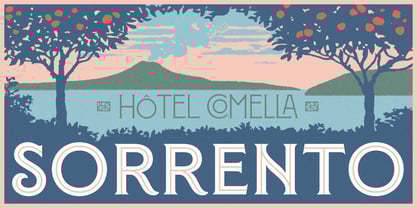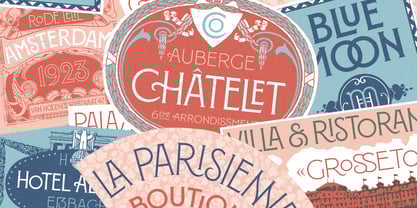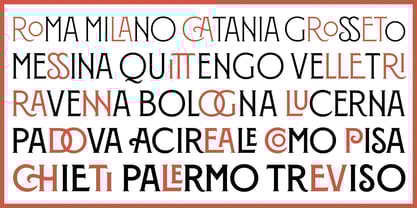
Montecatini Pro Font
This Montecatini Pro Font is perfect for luxury Italian branding, spa and wellness resort materials, thermal bath promotions, upscale hospitality signage, Mediterranean restaurant menus, premium tourism marketing, artisan craftsmanship labels, elegant fashion boutiques, sophisticated wine packaging, and refined European business communications.
What makes this Montecatini Pro Font exciting is its sophisticated Italian elegance that captures the timeless beauty and refined luxury of Tuscan wellness traditions. The font features graceful letterforms with Mediterranean sophistication that convey thermal relaxation, artisanal quality, and European refinement. Its spa-inspired character and Italian authenticity make it ideal for brands seeking to communicate wellness luxury, Mediterranean charm, and sophisticated European excellence in premium hospitality markets.
The Montecatini Pro Font family includes light, regular, medium, and bold weights with Italian alternates, thermal-inspired variants, and spa-focused flourishes. This comprehensive wellness font family provides designers with sophisticated typographic tools to create luxurious compositions while maintaining the Mediterranean character essential for spa, wellness, and European luxury brand communications.
Luxury resorts and wellness brands consistently choose Montecatini Pro Font Free Download for projects requiring authentic Italian appeal and spa sophistication. This font's distinctive Mediterranean character perfectly captures the thermal wellness excellence and European luxury that resonate with audiences who appreciate Italian spa traditions, wellness experiences, and sophisticated European hospitality.
The elegant construction of Montecatini Pro Font showcases beautifully crafted letterforms with Italian proportions that ensure exceptional sophistication across all wellness applications. Its thermal elegance and Mediterranean charm create memorable impressions while maintaining the readability necessary for effective luxury hospitality communication and spa marketing materials.
Professional designers appreciate how Montecatini Pro Font brings immediate Italian sophistication and wellness authority to brand communications. The font's spa nature allows organizations to communicate thermal luxury and Mediterranean excellence while maintaining the professional quality necessary for effective positioning in premium wellness and European hospitality markets.
The thermal appeal of Montecatini Pro Font makes it particularly effective for brands emphasizing Italian wellness traditions, spa luxury, and Mediterranean sophistication. Its elegant character resonates strongly with audiences who appreciate thermal spa experiences, Italian craftsmanship, and brands that represent authentic European wellness and sophisticated Mediterranean hospitality.
Whether developing branding for luxury spa resorts or creating materials for Italian wellness retreats, Montecatini Pro Font Free Download provides the sophisticated typographic foundation that wellness brands need to communicate their Italian authenticity, thermal excellence, and the refined elegance that defines premium European spa experiences and Mediterranean luxury achievement.